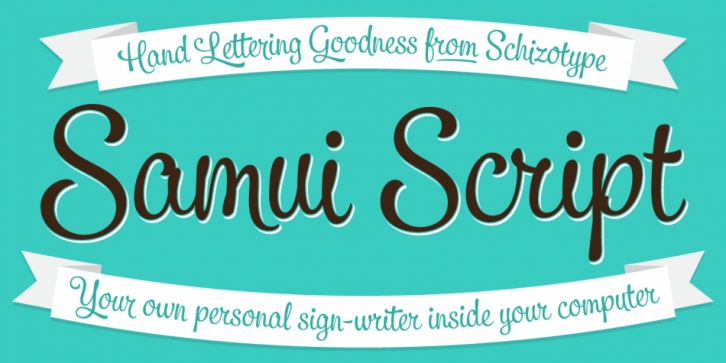
Samui Script is a brush script font published by Schizotype Fonts.
Named for the island that I’ve had the pleasure of calling home for over a year now, Samui Script is a lovingly made, hand-lettering-style, script font, with a bouncy baseline and exuberant character. Taking mid 20th century commercial lettering as its inspiration, it is no revival, or pale imitation of past forms. This font can be as contemporary as you need it to be, or as retro, or somewhere in between. A wealth of sophisticated OpenType features lie beneath the bouncy exterior, making for a versatile script font that performs well at headline sizes, but is also legible enough to set small amounts of copy.